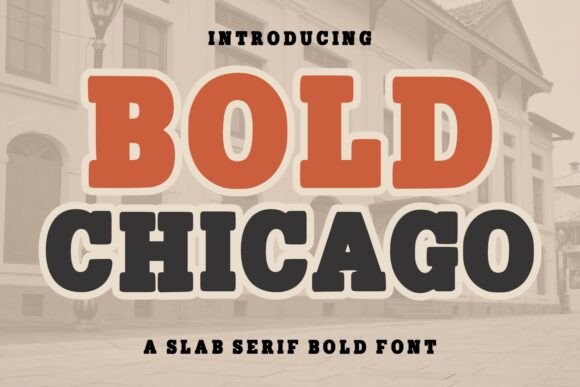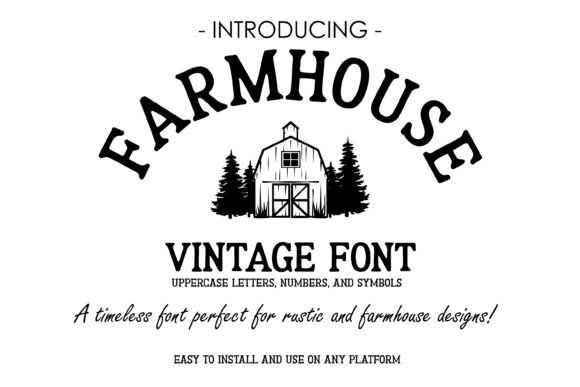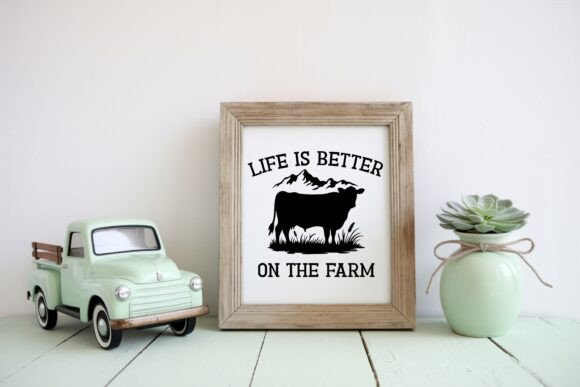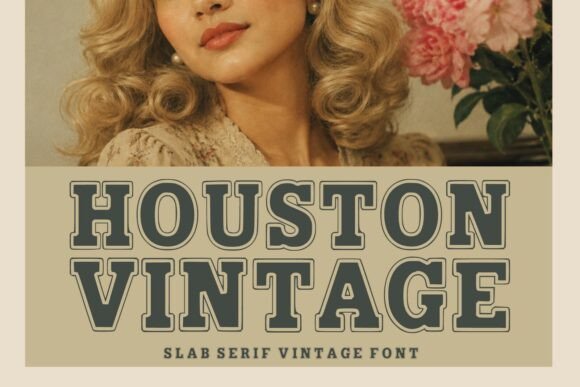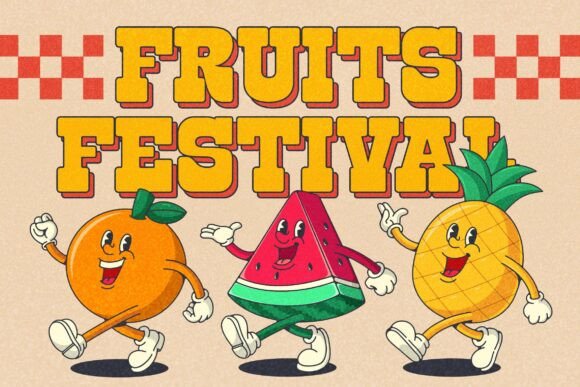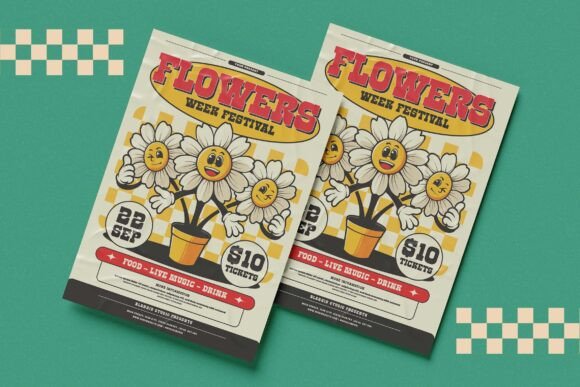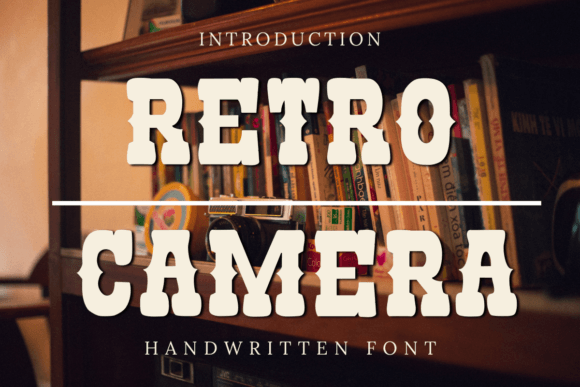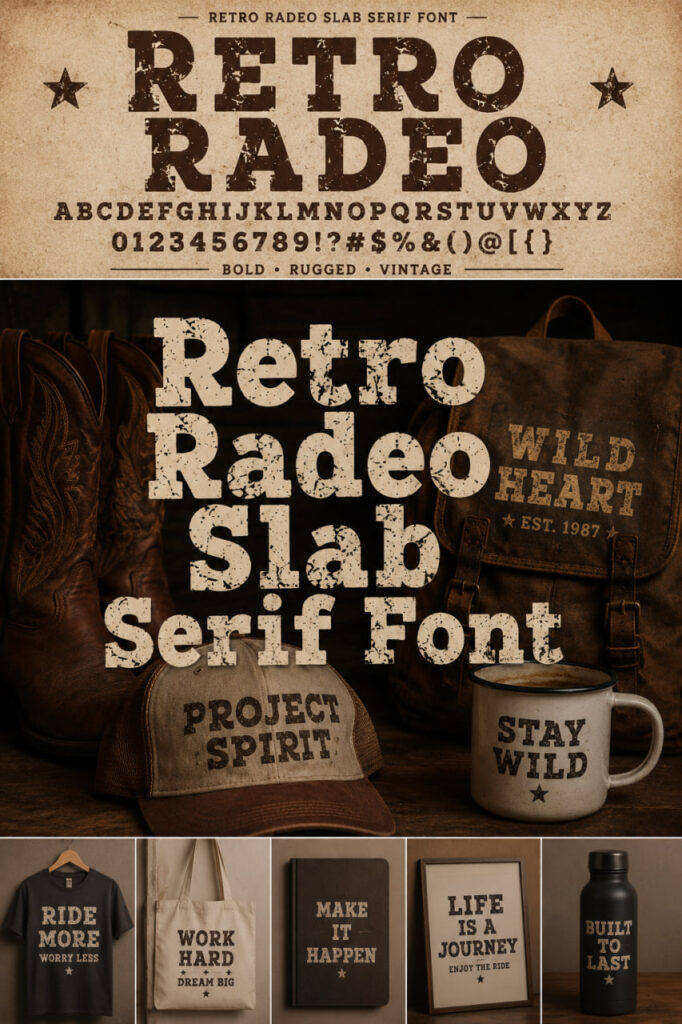
18 Best Slab Serif Font Picks: From Retro to Modern Excellence
Finding the right balance between old-school character and clean lines is the ultimate designer’s challenge. In this roundup, I’ve curated 18 essential picks to help you master everything from a rugged vintage slab serif aesthetic to a high-impact modern slab serif look. Whether your project demands the nostalgic soul of a retro slab serif or the polished authority of a contemporary typeface, these versatile fonts provide the structural strength and creative flair needed to anchor any professional layout.
Retro Radeo Slab Serif Font
In my own design workflow, I’ve found this typeface to be a perfect choice for branding, rustic-themed posters, and even bold t-shirt designs. Its strong slab-serif foundation gives it a powerful and nostalgic visual impact that instantly grabs attention. Whether I’m working on a vintage-style logo or heavy-duty signage, Retro Radeo adds that timeless charm and gritty edge that modern, clean-cut fonts just can’t replicate. It’s definitely a unique tool to have in your kit when you need your creative work to speak with a bit of authority and history.
Retro Block Slab Serif Font
When I’m working on a branding project that needs a bit of personality without losing its professional edge, I often find myself browsing through various Slab Serif Fonts. Recently, I’ve been really impressed by Retro Block. It’s a fantastic retro slab font that feels tailor-made for things like logotypes, watermarks, and product packaging. What I love most is that every letter has a distinct, playful retro style design, which makes it perfect for promotions and posters that need to stand out. It’s a great example of how Slab Serif Fonts can be both sturdy and fun at the same time, giving any professional project a unique, nostalgic character.
Retro Horse Slab Serif Font
If your project needs to feel professional but still keep a sense of humor, Retro Block is a fantastic discovery. I love how it reinvents the traditional structure of Slab Serif Fonts by giving every letter a playful, chunky design. It’s become a go-to for me when working on logotypes or promotional materials that need to pop without being too formal. Whether you’re designing watermarks or product packaging, this font brings a vibrant energy that proves “retro” doesn’t have to mean “stale”—it’s all about that bold, eye-catching personality.
Retro Soccer Slab Serif Font
Lately, I’ve been obsessed with finding typefaces that bridge the gap between “vintage stadium” and “modern streetwear,” and Retro Soccer hits that sweet spot perfectly. It’s a condensed take on the style, which is a breath of fresh air compared to the wider I usually see. The design has this bold, energetic pulse that feels like it’s straight off a retro jersey, but with a clean, modern finish that keeps it looking sharp on high-res digital backgrounds.
Retro Camera Slab Serif Font
I’ve always felt that the right typography can act like a lens, focusing the entire mood of a design project. That is exactly what happens when I play around with Retro Camera. It’s a cool, Western-style typeface that stands out from more traditional Slab Serif Fonts by bringing a specific vintage charm that feels both nostalgic and fresh. I find myself reaching for this one whenever a layout needs a bit of rugged personality without becoming too heavy or overbearing.
Retro Grade Slab Serif Font
Sometimes a project just screams for a specific era, and Retro Grade is my go-to when I need to channel that distinct mid-20th-century aesthetic. While many Slab Serif Fonts can feel a bit too modern or industrial, this one has a sturdy, bold structure that feels like it was pulled straight from a vintage advertisement or an old-school storefront. It’s got a heavy presence that manages to feel nostalgic without being dated, which is a tricky balance to strike.
Vintage Christmas Slab Serif Font
There is something truly magical about the way typography can evoke a specific memory, and Vintage Christmas is a perfect example of that. While I’ve worked with plenty of Fonts, this one stands out because it combines that sturdy, classic structure with a subtle texture that feels like a hand-printed card from decades ago. It’s not just a bold font; it’s an atmosphere. I’ve found that its textured finish adds a layer of warmth and sophistication that a standard, clean-cut typeface just can’t provide.
Old Typewriter Font
There is something deeply tactile about the click-clack of a vintage machine, and Old Typewriter captures that mechanical soul perfectly. When I’m sorting through my library of Fonts, I often look for options that break away from perfect geometry, and this “cute” thematic font does exactly that. It’s incredibly evocative of old mechanical type, giving any layout an instant retro or even a gritty “forensics” style that feels authentic and intentional.
Farmhouse Vintage Slab Serif Font
When a project calls for that cozy, “home-grown” aesthetic, Farmhouse Vintage is the first typeface I think of. It’s a beautiful departure from the more aggressive or industrial Fonts we often see, offering instead a soft, rustic serif look that feels incredibly grounded and approachable. There is something about its timeless charm that makes it feel like it belongs on a handcrafted wooden sign or a local artisan’s label.